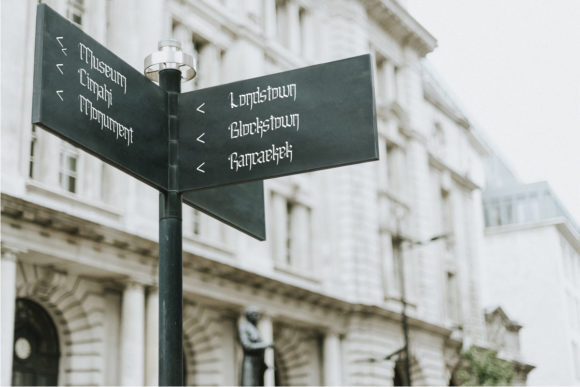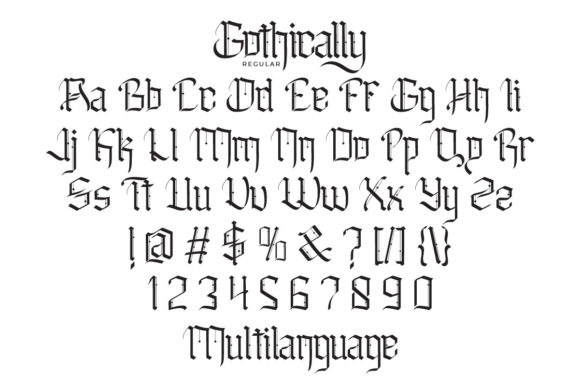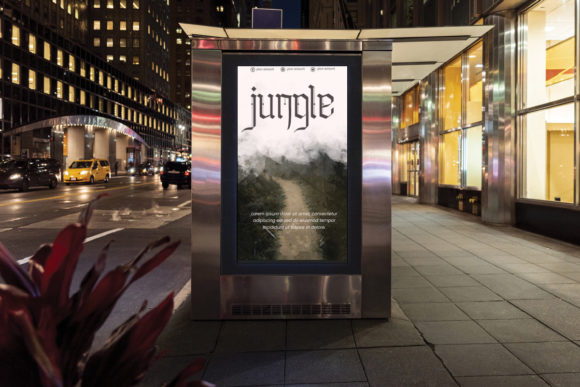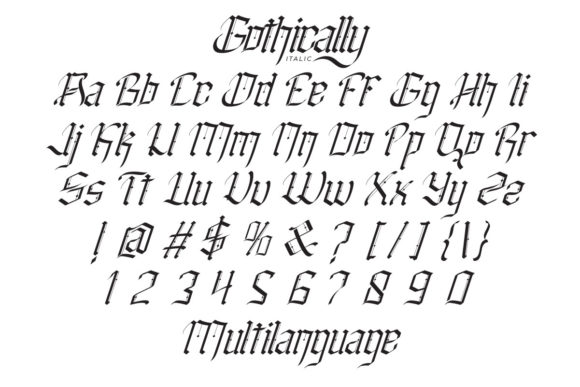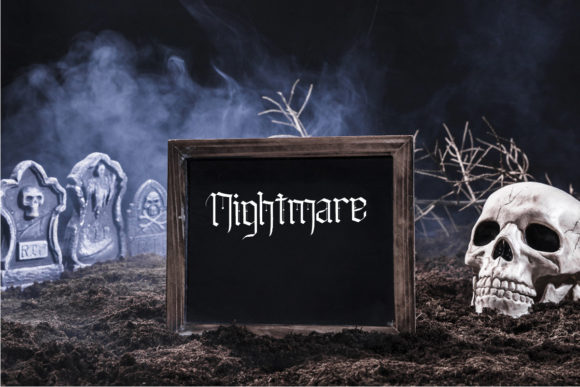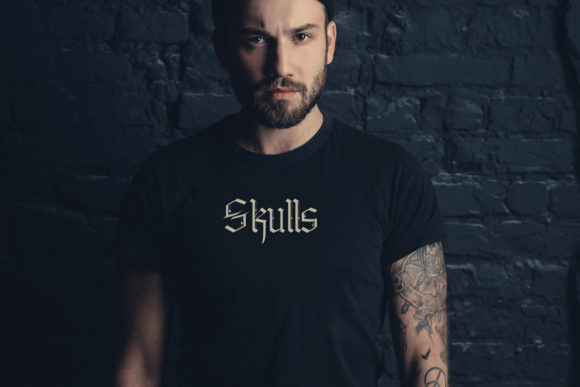
Gothically Font: Elevate Your Design with a Touch of Vintage Elegance
In the realm of typography, fonts play a pivotal role in conveying the essence of a brand or design. Among the myriad of font styles available, the Gothically font family stands out for its unique blend of vintage charm and modern appeal. Specifically, the Gothically Vintage Font, with its two distinct styles – Regular and Italic, offers designers a versatile tool to infuse their projects with a classic yet sophisticated look.
Unveiling Gothically Vintage Font
Gothically Vintage Font is a meticulously crafted vintage display font family designed to add a touch of elegance and nostalgia to various design projects. Its two primary styles, Regular and Italic, provide a range of possibilities for creative expression. Whether you’re working on branding, logos, stationery, business cards, signage, flyers, brochures, or any other visual project, Gothically Vintage Font is poised to enhance your design with its distinctive character.
Versatility Across Industries
The adaptability of Gothically Gothic font extends across numerous business industries, making it an invaluable asset for designers. Here are some sectors where this font can make a significant impact:
- Restaurants and Cafes: Use Gothically Gothic to create menus, signage, and promotional materials that evoke a sense of warmth and tradition.
- Music: Perfect for album covers, concert posters, and music-related branding that requires a vintage or classic vibe.
- Weddings: Add a touch of elegance to wedding invitations, programs, and decor with the sophisticated look of Gothically Gothic.
- Automotive: For car restoration projects, vintage car shows, or classic car dealerships, this font can help evoke a sense of nostalgia and power.
- Property: Real estate projects with a historic or vintage theme can benefit from the classic appeal of Gothically Gothic for signage, brochures, and property branding.
Why Choose Gothically Classic Font?
Gothically Classic Font, with its vintage display characteristics, offers several advantages to designers and businesses:
- Unique Aesthetic: Its distinctive vintage look sets it apart from more contemporary fonts, providing a unique aesthetic that can capture attention and convey a sense of tradition or heritage.
- Versatility: Available in two styles, Regular and Italic, it offers flexibility for various design applications.
- Elegance: The font’s classic design lends an air of sophistication and elegance, suitable for high-end branding or projects where a refined look is desired.
- Readability: Despite its vintage appeal, Gothically Classic Font maintains readability, making it effective for both display purposes and longer texts.
Tips for Using Gothically Gothic Font
To maximize the impact of Gothically Gothic in your designs, consider the following tips:
- Mix and Match: Combine Gothically Gothic with modern fonts to create a striking contrast that highlights the vintage charm of the font.
- Adjust Size and Color: Play with the font size and color to ensure it complements your design while standing out as a focal point.
- Use in Moderation: While Gothically Gothic is visually appealing, using it in moderation, especially for longer texts, can prevent the design from feeling overly vintage or cluttered.
Gothically Vintage Font, with its Regular and Italic styles, presents a valuable resource for designers seeking to imbue their projects with a vintage yet timeless elegance. Its versatility across various industries and applications makes it a go-to font for projects requiring a classic touch. By incorporating Gothically Gothic into your design repertoire, you can create visually stunning and memorable pieces that stand out in a modern world.